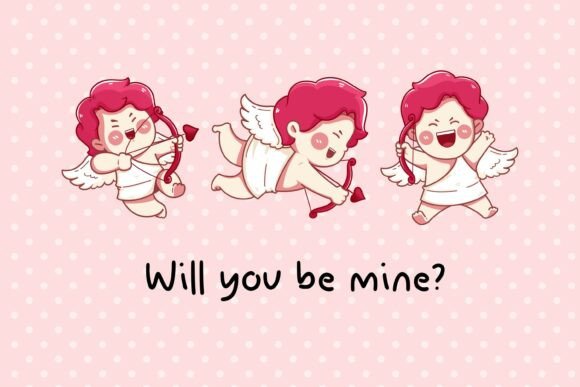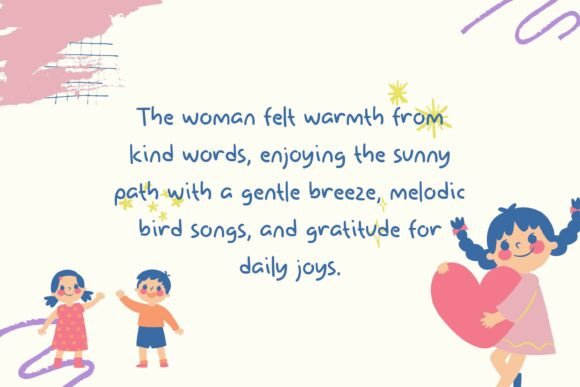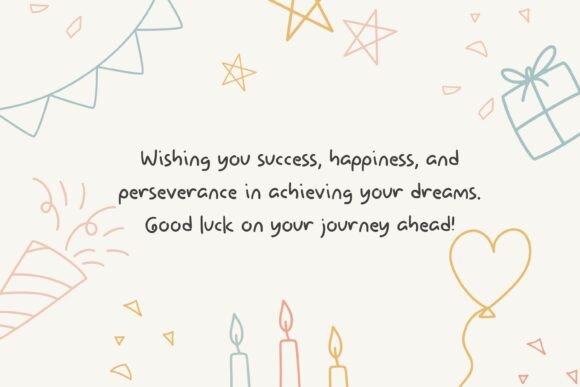
Introduction to Angelas Font
Illuminate your creative projects with Angelas , a charming handwriting font designed to bring a touch of personal warmth and whimsical wonder to every page.
This typeface features soft, rounded letterforms and a natural, rhythmic flow that captures the effortless beauty of a hand-lettered journal or a beloved children’s storybook Its friendly and approachable style makes it an exceptional choice for nursery decor , birthday invitations, and dreamy branding .
Angelas Font offers exceptional quality and versatility, making it a valuable addition to your design toolkit. Whether you’re creating for personal projects or commercial use, Angelas Font delivers professional results.